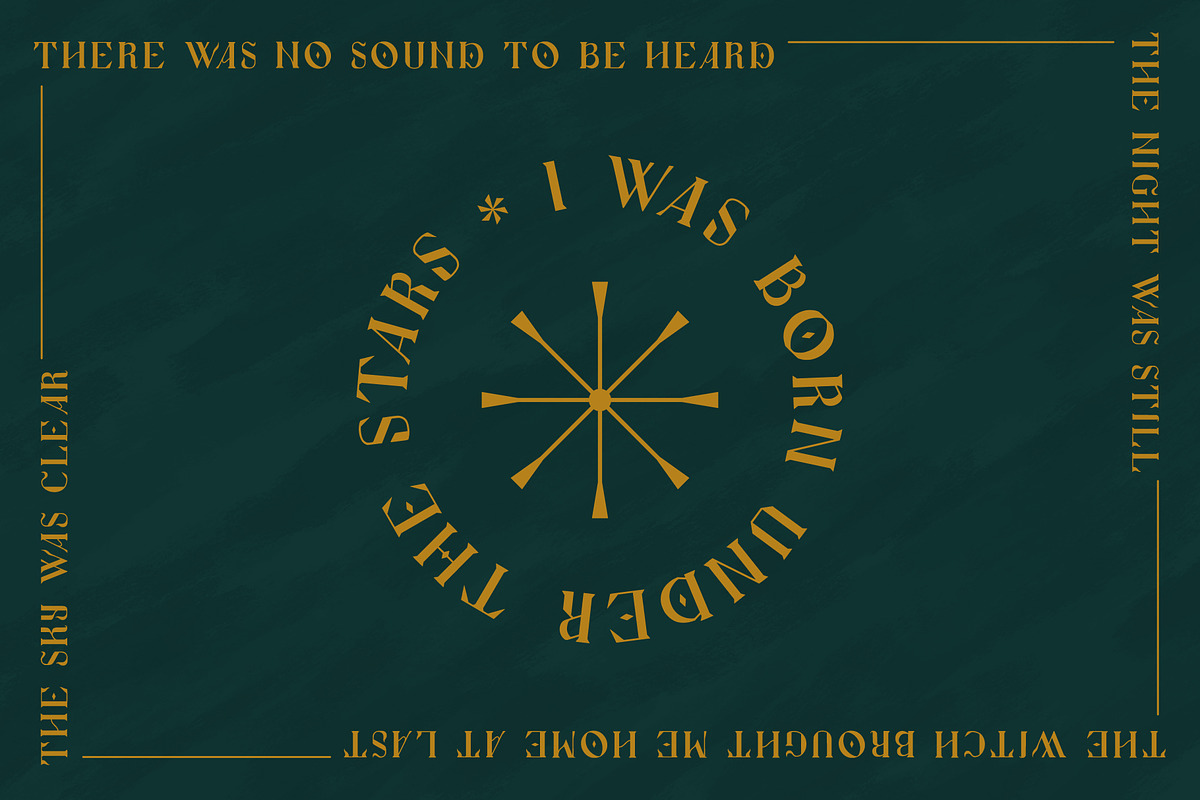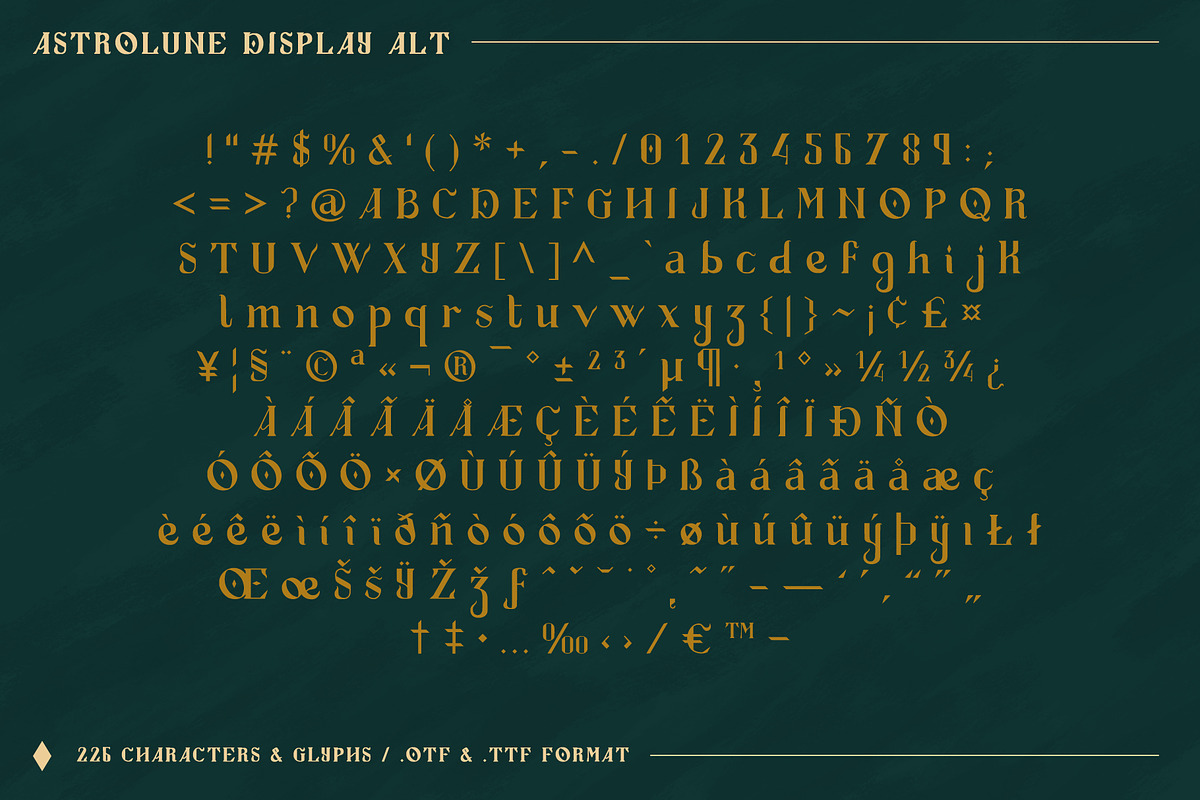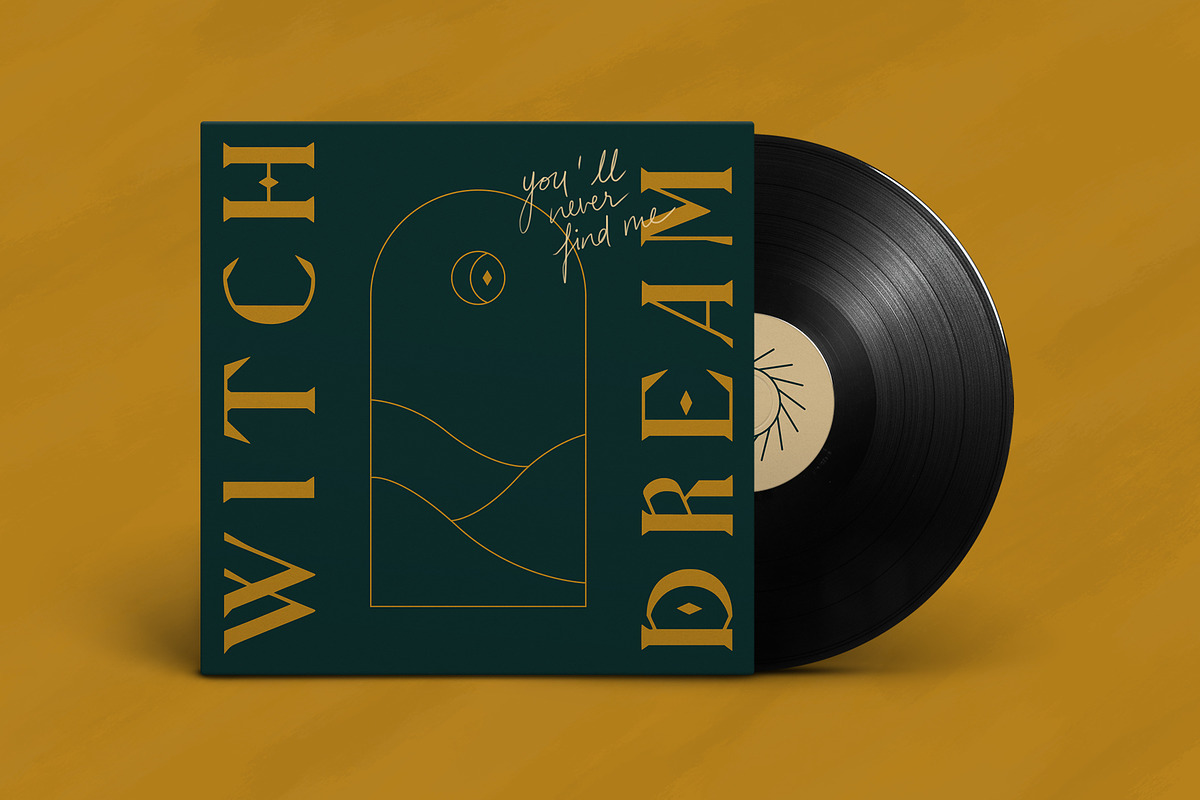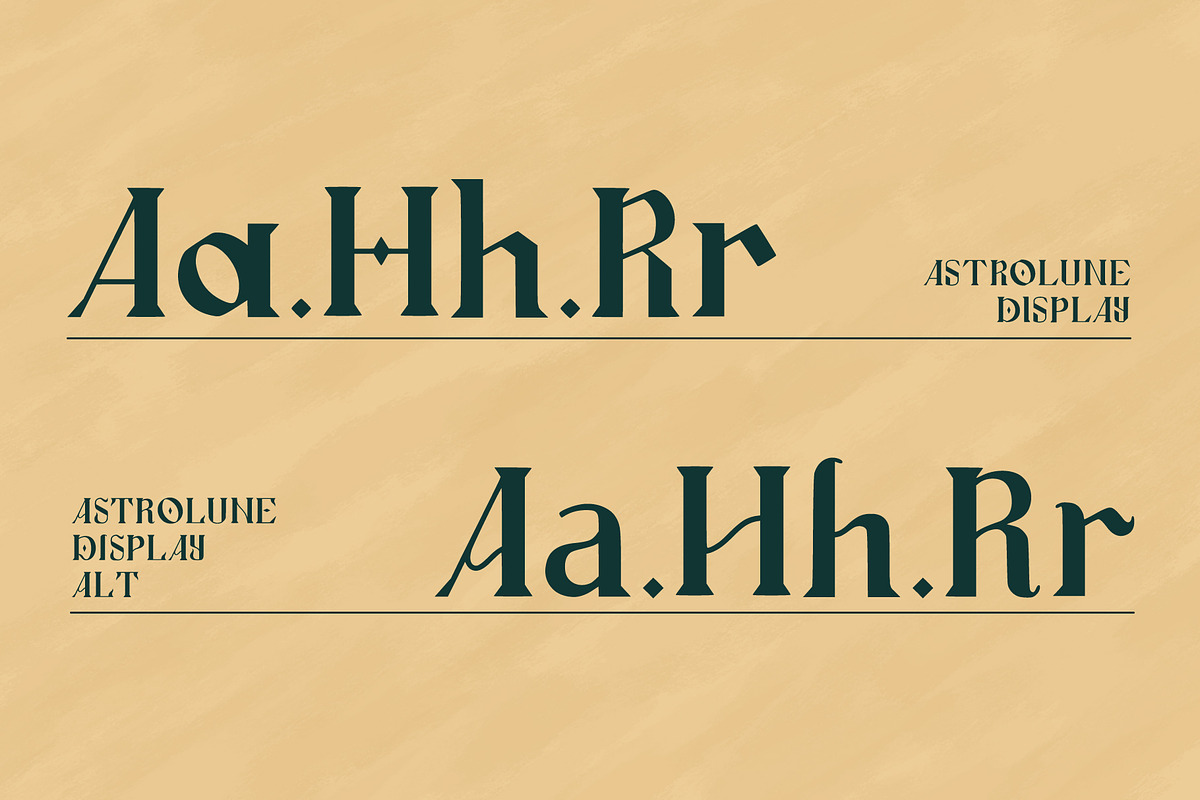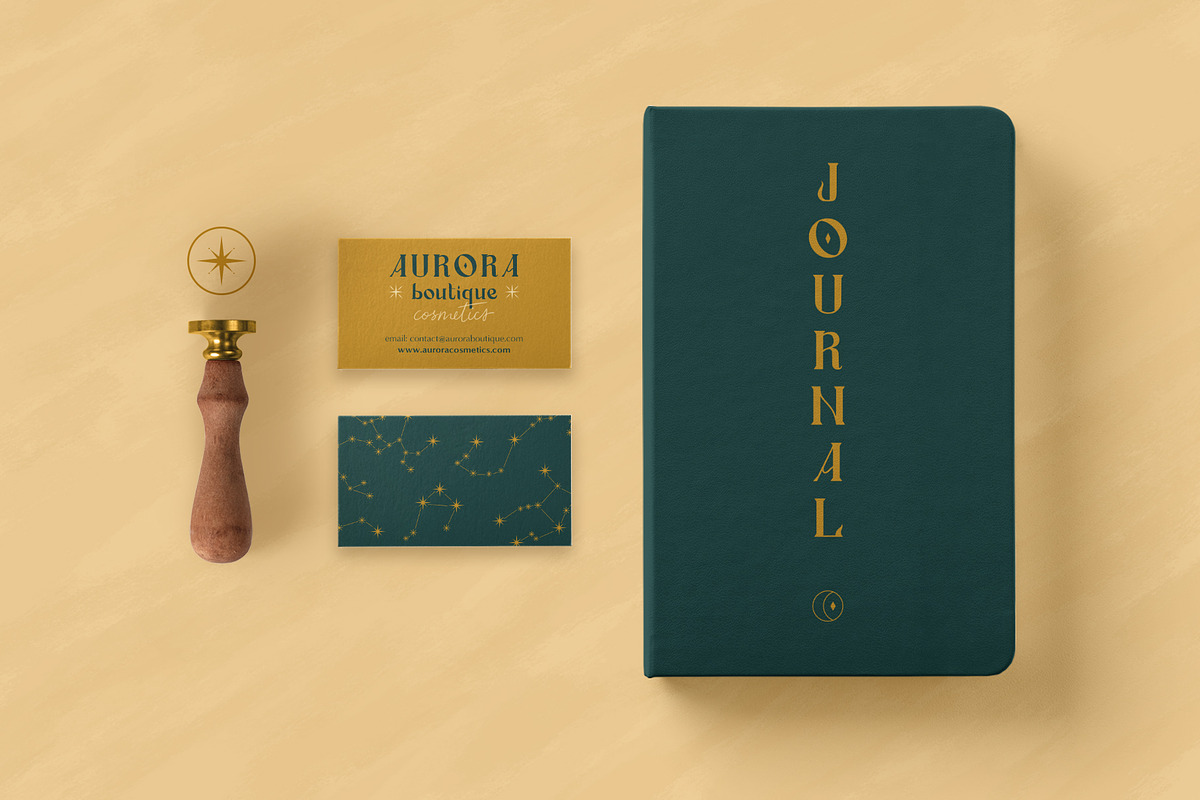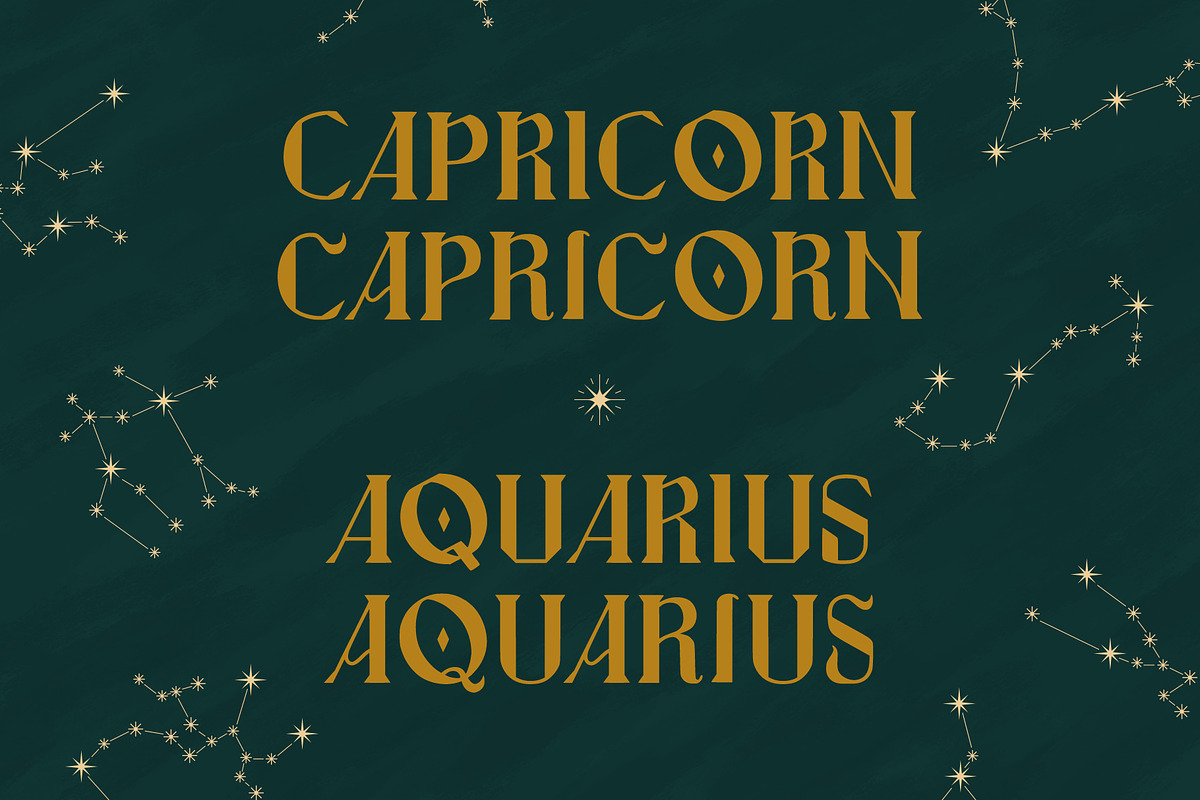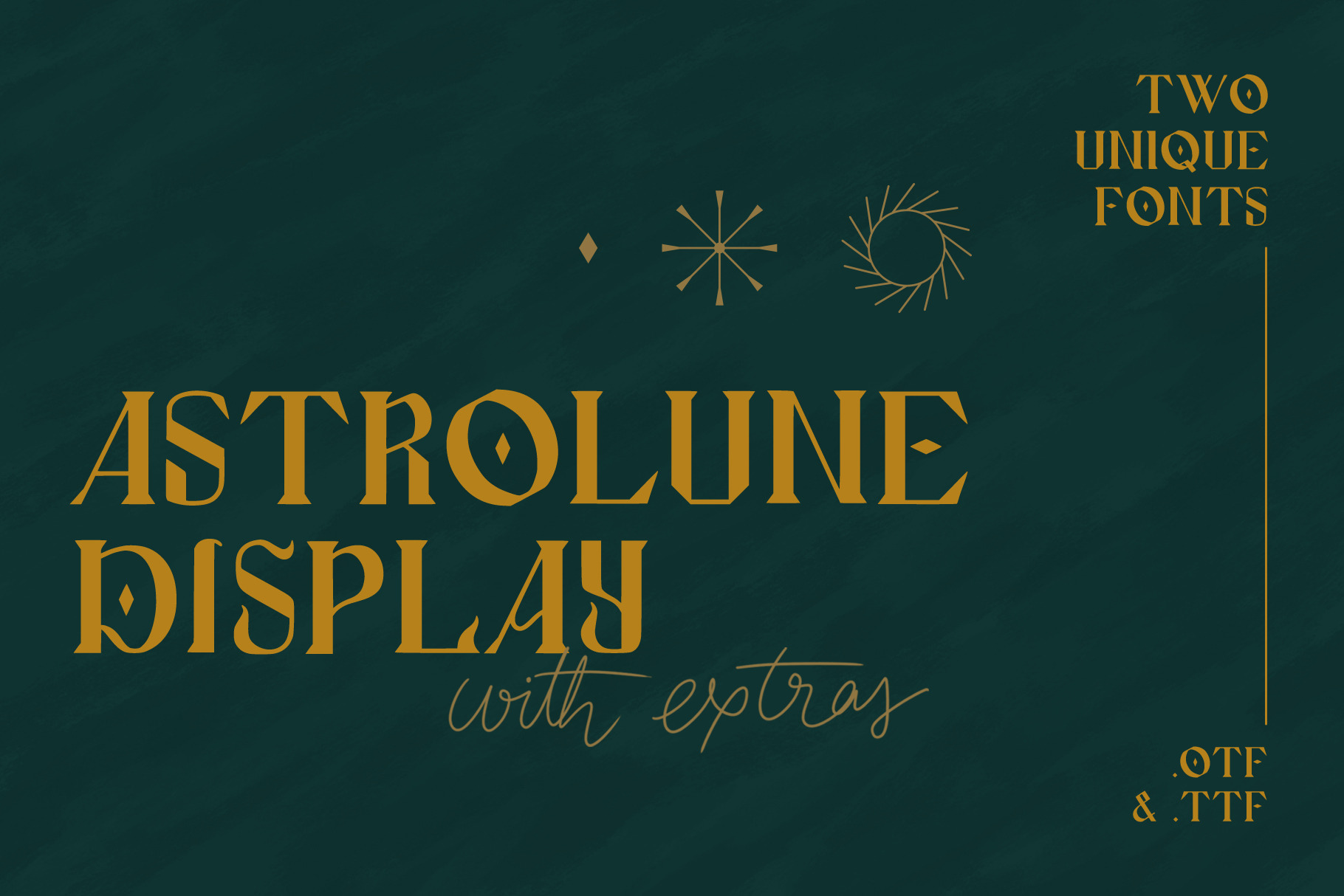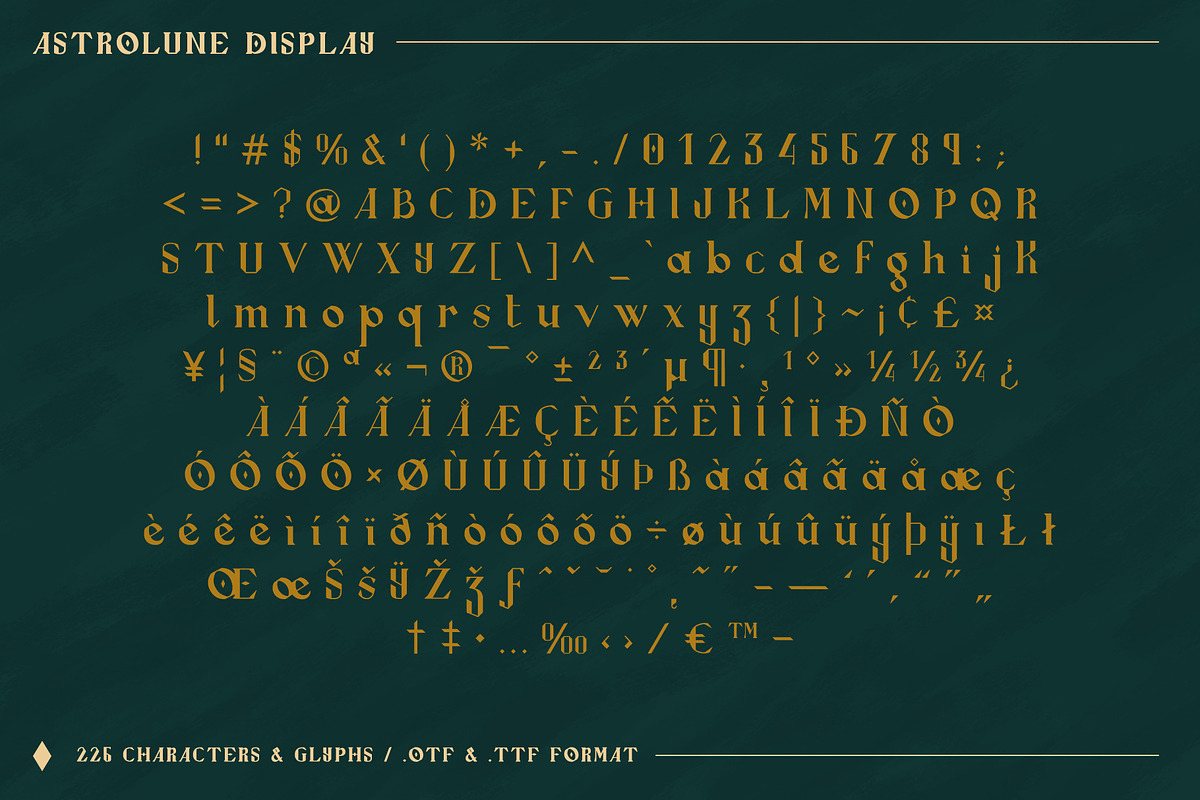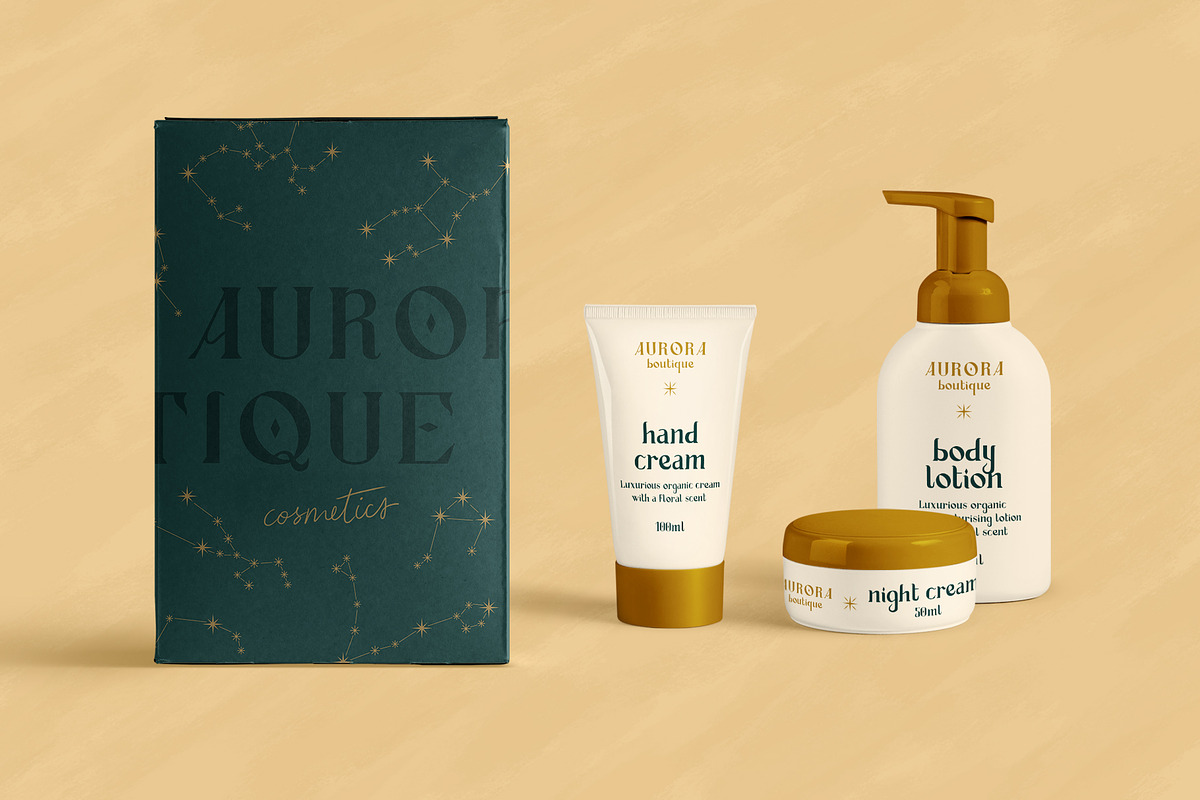
Astrolune Display - Fonts + extras
The Astrolune Display fonts are unique fonts with a hint of blackletter and a slight hand-drawn feel. This pair of fonts has a dark and mystical vibe, perfect for branding and to add a bold unique touch to any of your typographic projects, book covers and products in need of a decorative and celestial style. They can be used for English, French, German, Italian and Spanish (or any other language that uses the same latin characters). Both fonts have a total of 226 characters and glyphs, including accents, punctuation, numbers, etc.
I've also designed constellations and stars that I included with the fonts as a little bonus. Enjoy!